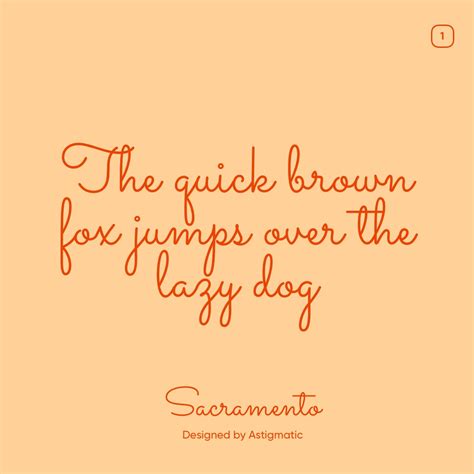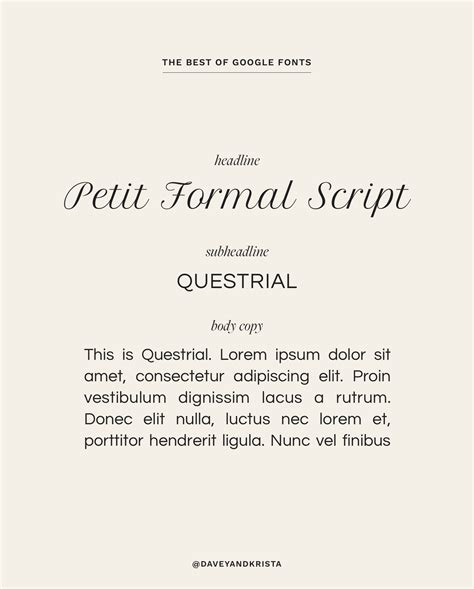
Top 38+ Script Google Fonts Pack Ttf
I’ve spent hours trawling through font directories, and honestly, finding the right handwriting style for a project is a massive headache. You think you’ve found the perfect typeface, only to realize it lacks proper kerning or weighs down your site’s load time. That’s exactly why I started compiling my own curated list, eventually narrowing down to the Top 38+ Script Google Fonts Pack Ttf. Having these locally stored as TrueType files gives you ultimate control over subsetting and offline rendering.
Curating the Top 38+ Script Google Fonts Pack Ttf
When I tested various script families for an e-commerce branding project, the biggest hurdle was balancing personality with readability. Scripts inherently carry a specific tone—some feel elegant and formal, while others mimic casual dry-erase markers. Contrast is critical here. You cannot pair a heavy brush script with a thin sans-serif body text without creating visual chaos. I always recommend testing the chosen typeface at actual pixel sizes, specifically 16px, 24px, and 32px, before committing.
Evaluating the Top 38+ Script Google Fonts Pack Ttf Variations
Not all scripts are created equal. In my experience, separating them by structural style saves hours of trial and error. Here is how I categorize the most reliable options from the pack.
Font NameBest Use CaseLegibility at Small Sizes
Dancing ScriptSubheadings, accentsMedium
PacificoLogos, bold headersLow (use > 24px)
Great VibesFormal invitationsLow (use > 32px)
CaveatCasual annotationsHigh
⚠️ Note: Always test script typography on mobile devices first. High-resolution desktop monitors hide rendering flaws that become glaring on Android screens.
Stop treating typography as an afterthought. The right script face adds an emotional hook that standard sans-serifs simply cannot achieve. Grab that pack, subset it down to your three favorites, and start testing them in your actual UI layouts today.